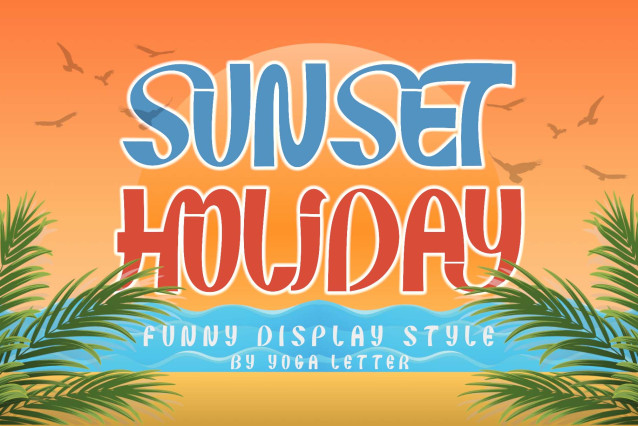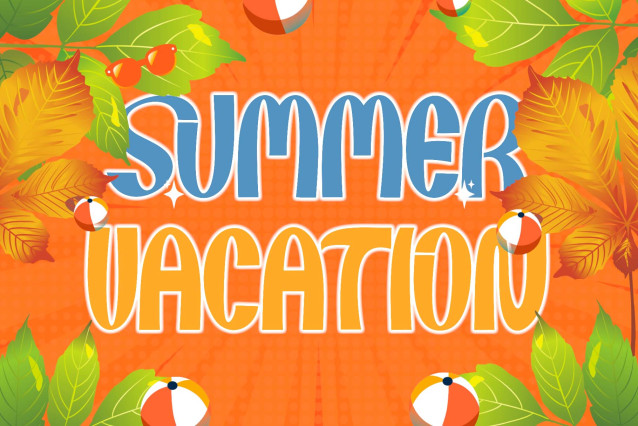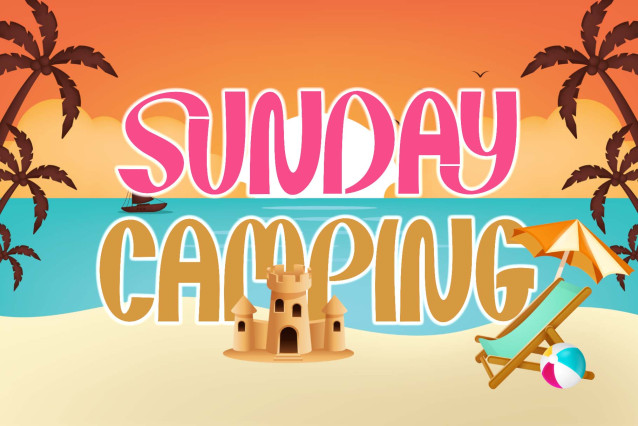
Sunset Holiday Font
Sunset Holiday Font is a unique and elegant display font. This font is equipped with uppercase, lowercase, ligatures, numerals, punctuations and multilingual support. It is very suitable for summer, vacation, camping, 4th of July, Christmas, Halloween, back to school, father’s day and others.